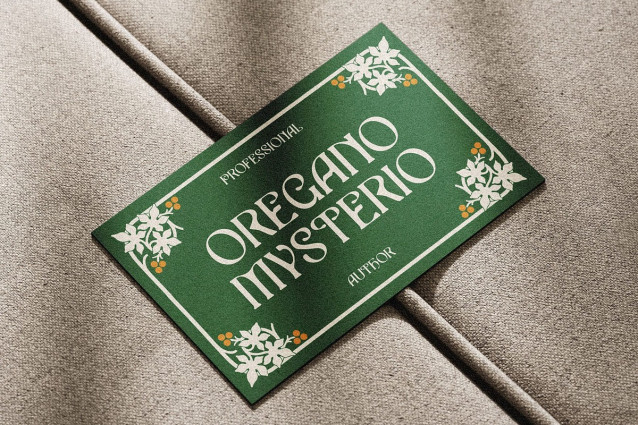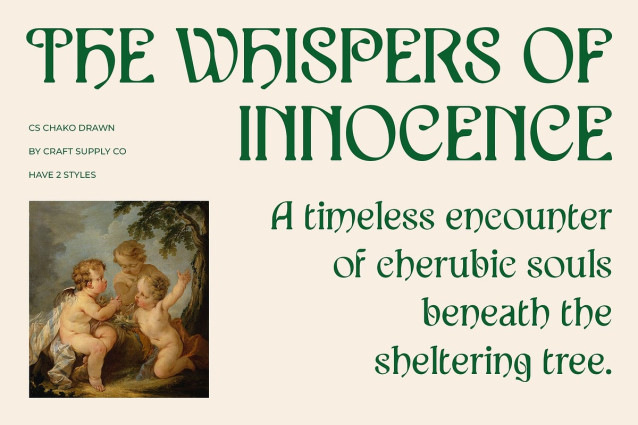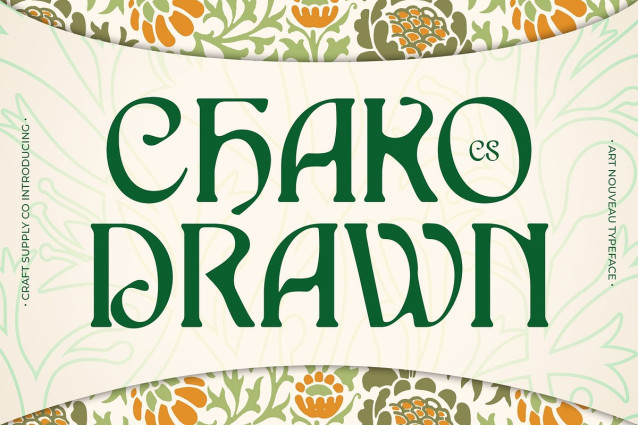
CS Chako Drawn Font
CS Chako Drawn Font – This is a modern serif font inspired by the graceful curves and ornamental beauty of the Art Nouveau movement. It blends clean, contemporary lines with timeless elegance, creating a sophisticated and fresh aesthetic that works beautifully across a variety of design projects.
Smooth Curves for Graceful Expression Featuring smooth, flowing curves and delicate details, this font adds a dynamic yet refined character to any design. The elegant shapes convey a sense of movement and fluidity, making it perfect for projects that require both style and readability.
Drawn Effect for Handcrafted Character The distinctive drawn effect gives this unique font a handcrafted, artistic feel, adding warmth and personality to its refined structure. This unique touch enhances its versatility, allowing it to stand out in luxury branding, editorial layouts, invitations, and creative visual identities.
Versatile for Classy and Beautiful Designs With its blend of modern serif clarity and artistic flair, this artistic font is ideal for designs seeking a classy, sophisticated look. Whether for high-end branding, fashion magazines, or elegant event materials, this font delivers a perfect balance of beauty and contemporary style.